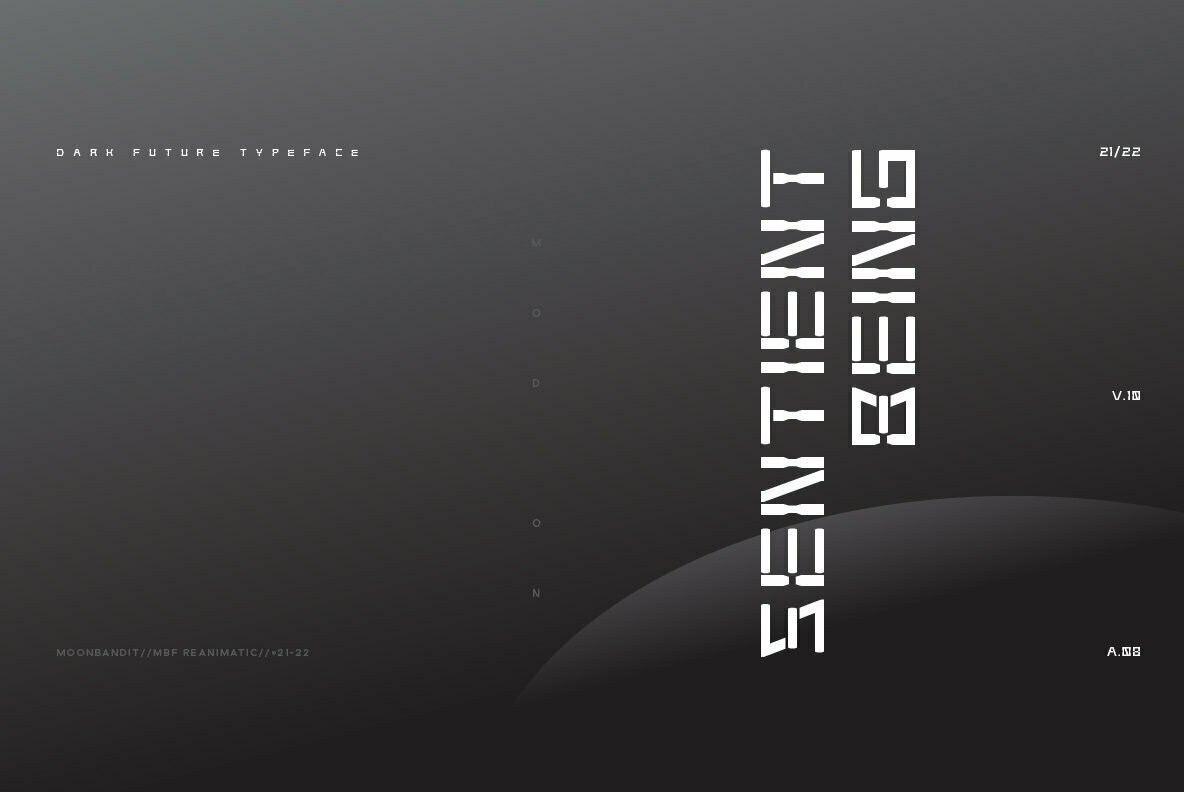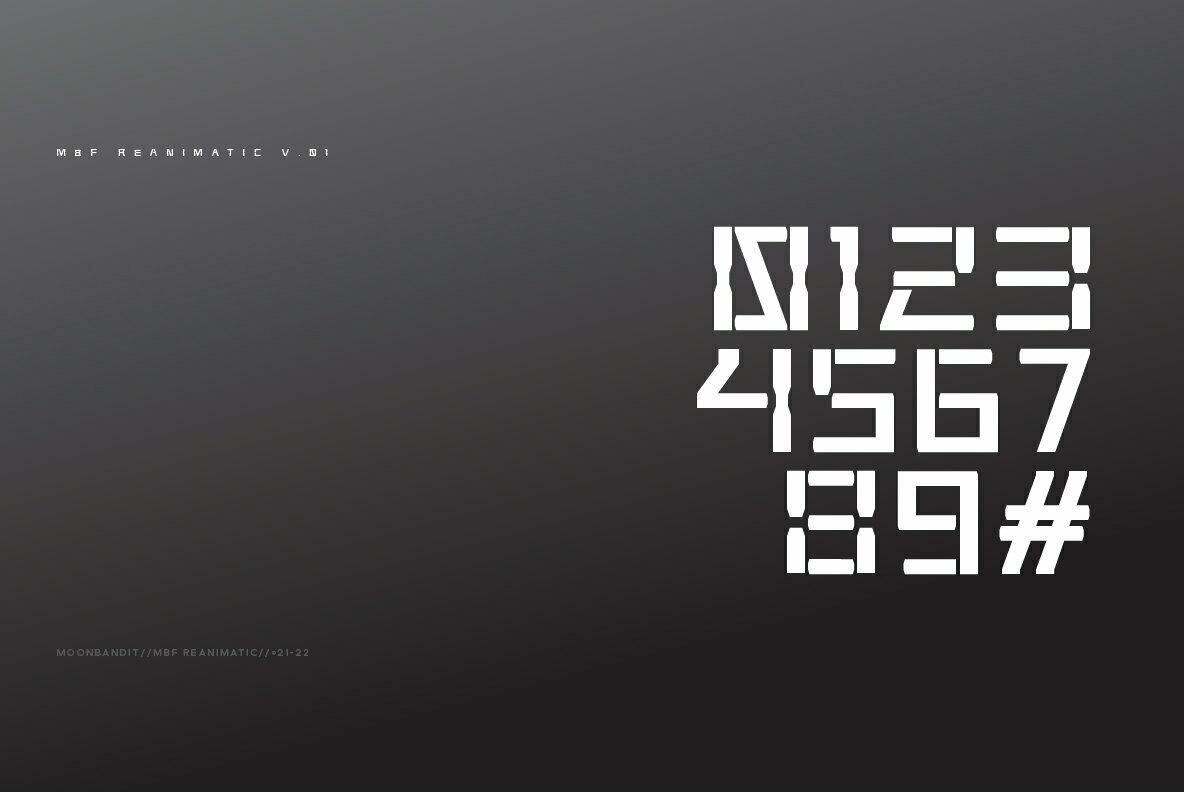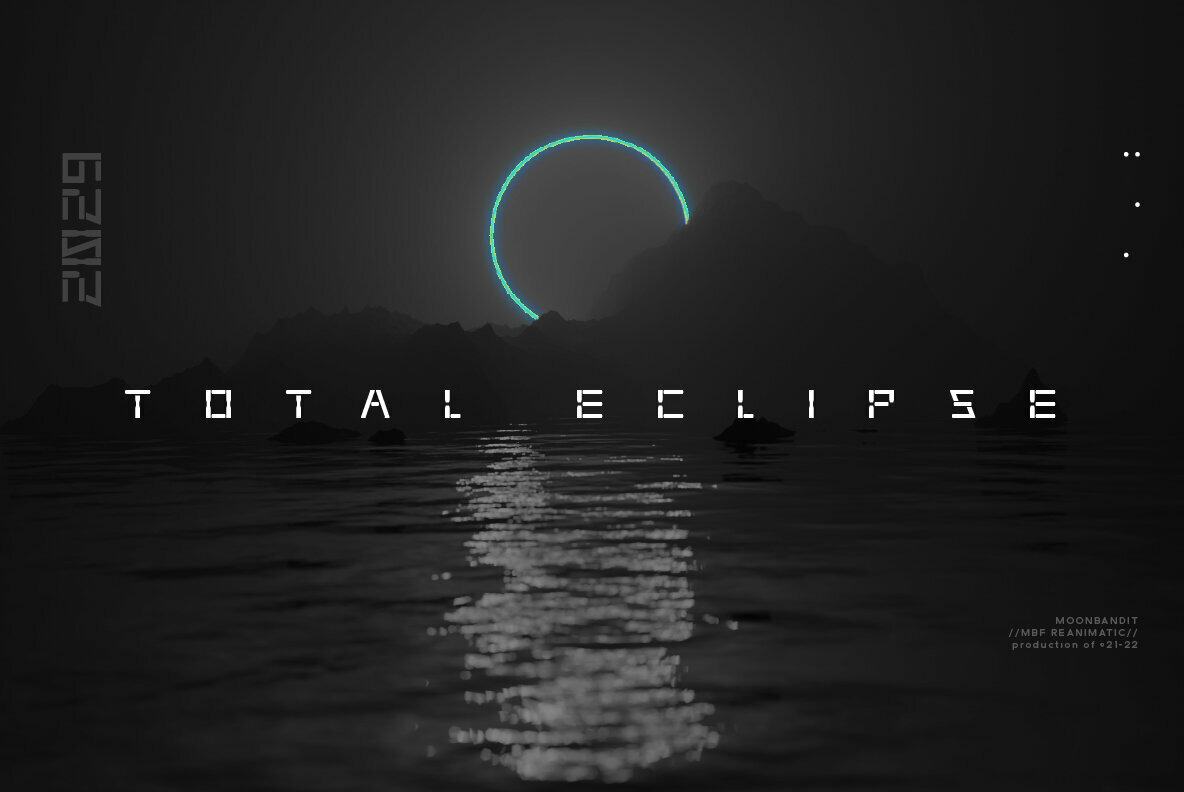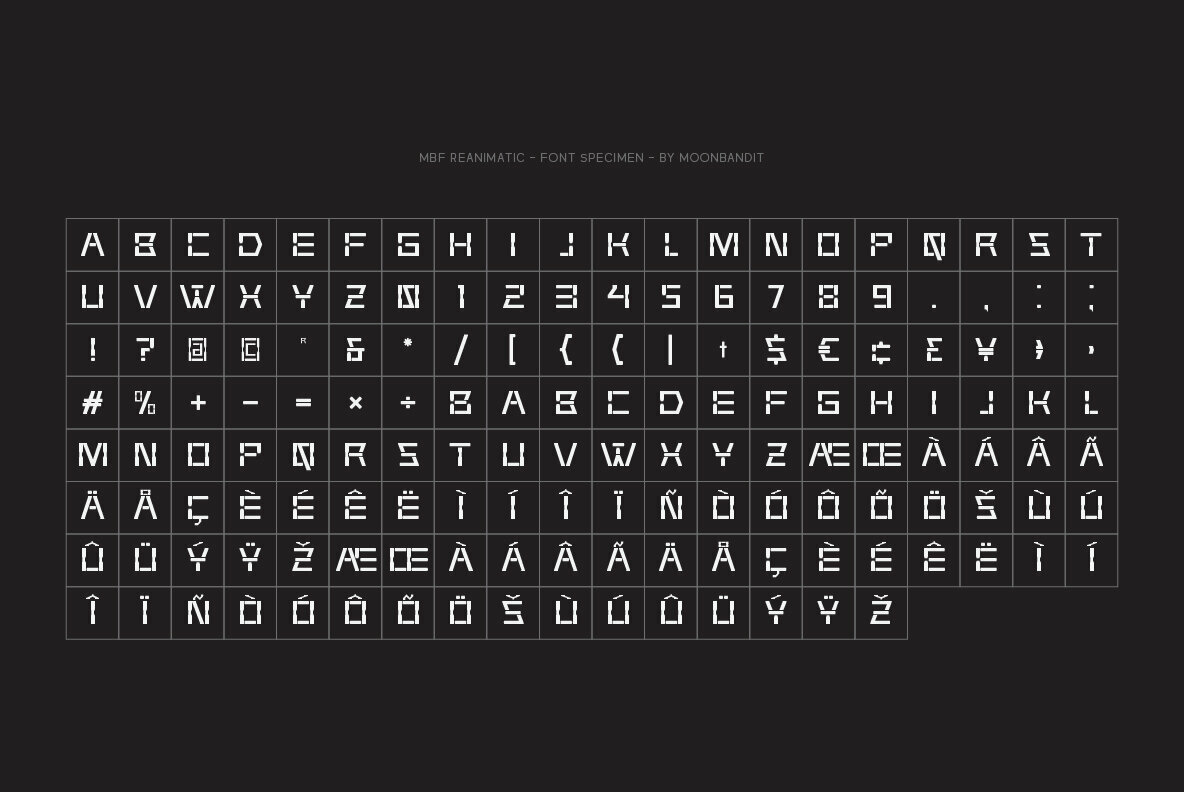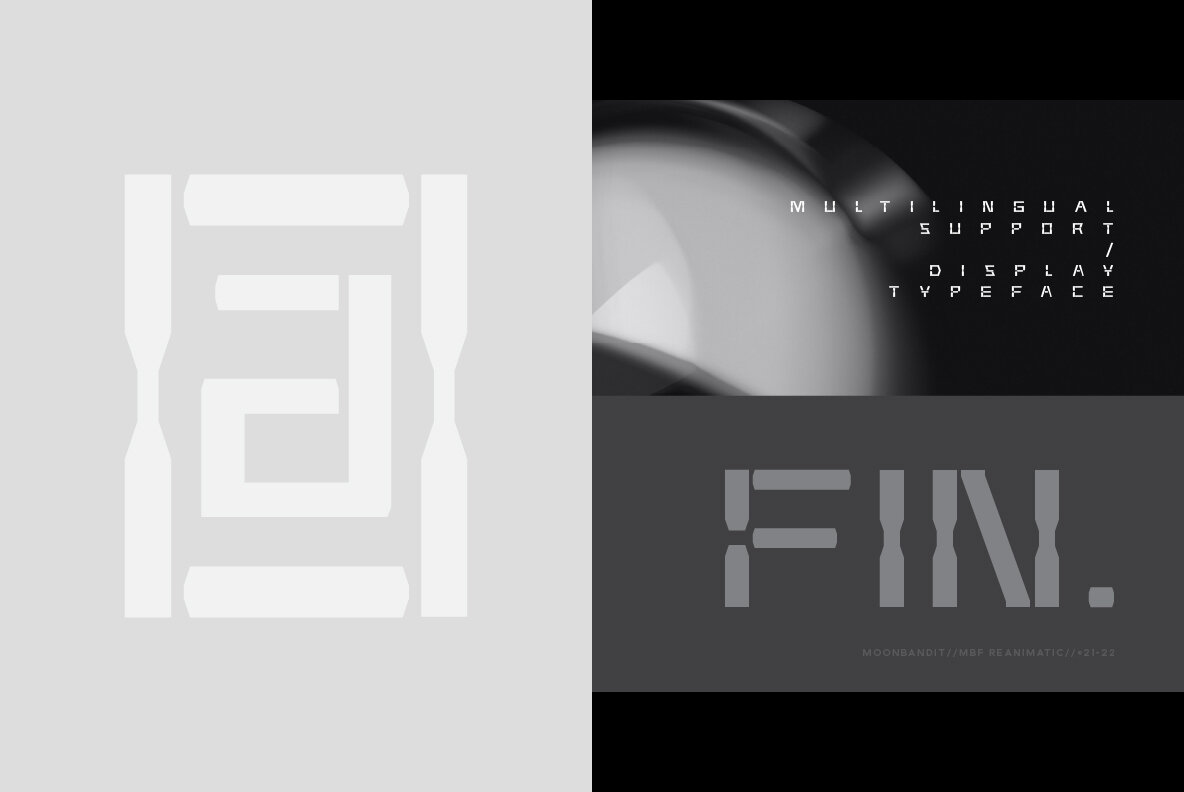
MBF Reanimatic Font
MBF Reanimatic Regular
Reanimatic, a futuristic scifi font. This typeface is a modern display sans serif packed with a reimagination of a dark future technology. This font is perfect for a big size display or title and even logo.